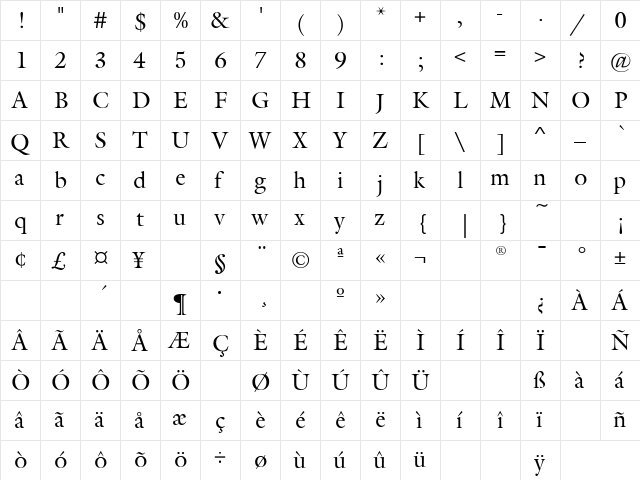
Galliard EF Roman Regular
Design Context for Galliard EF Roman Typeface
Galliard EF Roman is a composed and adaptable typeface that performs quietly and consistently across a wide range of design contexts.